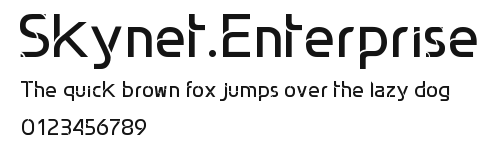
Skynet.Enterprise Preview
• Font Name: Skynet.Enterprise
• Full Font Name: Skynet.Enterprise
• Version: Version 1.00 December 10, 2014, initial release
About Skynet.Enterprise.ttf
Skynet.Enterprise.ttf is a modern, elegant sans-serif font designed for ultimate readability and visual harmony. Perfect for branding, headlines, web design, and print materials.